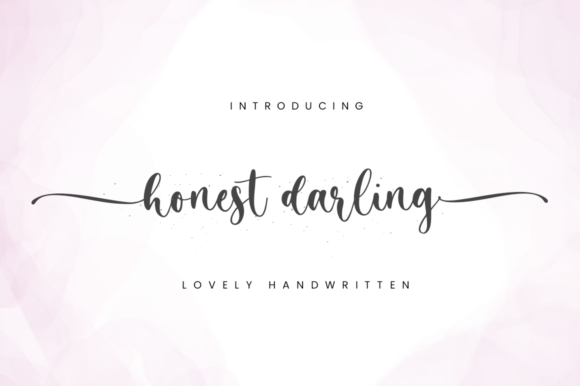
Journey into the world of elegance and charm with Honest Darling, a captivating script font that dances with romance and creativity. Its graceful curves and delicate swashes evoke a sense of heartfelt emotion, making it the perfect choice for crafting timeless designs that speak to the heart. Whether you're a seasoned designer or just starting your creative journey, Honest Darling is your muse, guiding you to create stunning works of art that leave a lasting impression.
Unleash your imagination and let Honest Darling guide you as you design enchanting wedding invitations, stationery that tells a story, and branding that exudes sophistication. Its versatility shines in the world of social media, adding a touch of allure to your posts and advertisements. Every letter dances across the page, inviting your audience to engage with your content in a way that truly resonates.
With Honest Darling, you'll find yourself immersed in a world of endless creative possibilities. Its PUA encoding grants you effortless access to a treasure trove of glyphs and swashes, empowering you to add intricate details and flourishes that elevate your designs to new heights. Say goodbye to limitations and embrace the boundless realm of artistic expression.
Honest Darling is not merely a font; it's an invitation to embark on a creative expedition, where your imagination knows no bounds. Let its graceful strokes inspire you to create designs that capture the essence of romance, elegance, and timeless beauty.